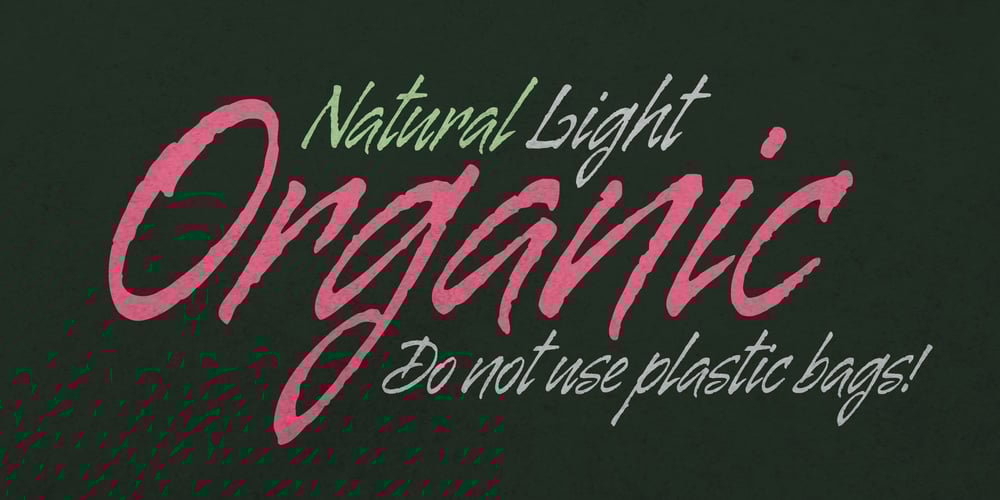
Galgo Script Font Family was designed by Alejandro Paul, Angel Koziupa and published by Sudtipos. Galgo Script contains 1 styles and family package options. The Galgo is a Spanish Greyhound, an ancient hybrid breed of dog. Just like the Galgo, the letters of this font are a mix of elegant brush calligraphy and the rough, weathered strokes of speedy scrawl. Galgo Script is quite suitable for logomarks, titles, single sentences or paragraph-length artistic writing passages. Drawn by Angel Koziupa and digitized by Alejandro Paul, Galgo Script was made because of popular demand for this kind of “rush brush”.